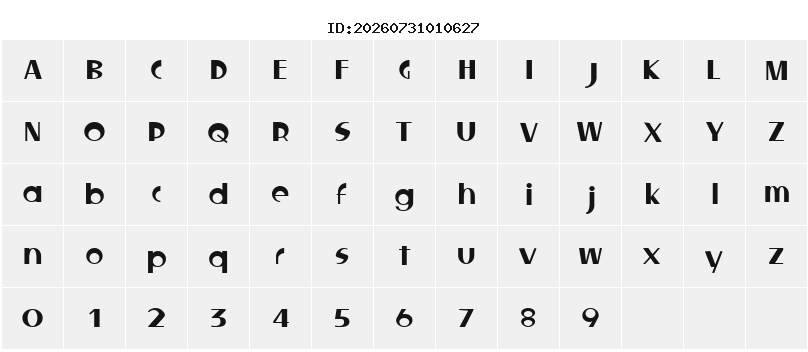
Locked Window Preview
• Font Name: Locked Window
• Full Font Name: Locked Window
About Locked Window.ttf
Locked Window.ttf is a modern, elegant sans-serif font designed for ultimate readability and visual harmony. Perfect for branding, headlines, web design, and print materials.